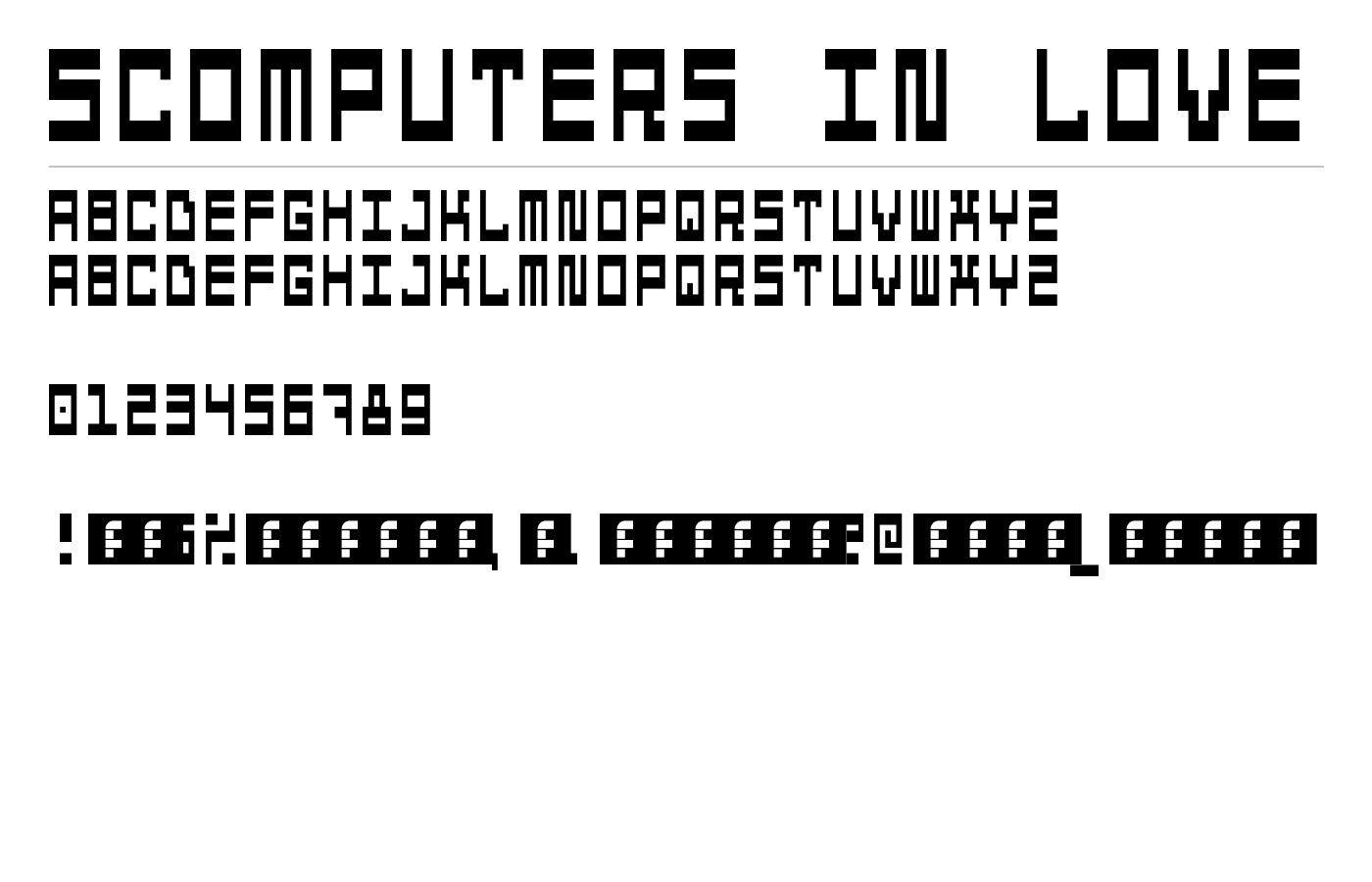
5Computers In Love is a bold, condensed sans serif font with a pixelated, digital aesthetic that evokes early computer and arcade typography. Its blocky, geometric letterforms have consistent stroke weight and a futuristic, tech-inspired feel, making it perfect for retro-themed designs, video game graphics, and digital branding. This font works best in attention-grabbing headlines or logos where a modern, technology-driven vibe is desired.
5Computers In Love Font